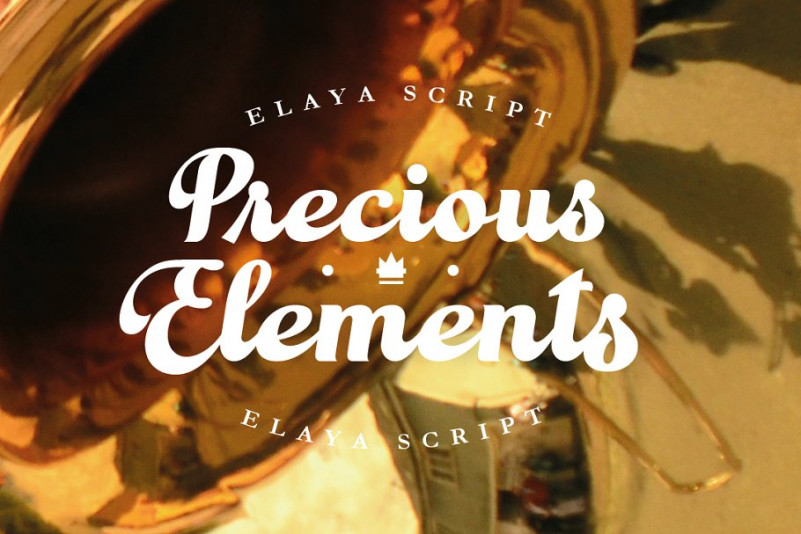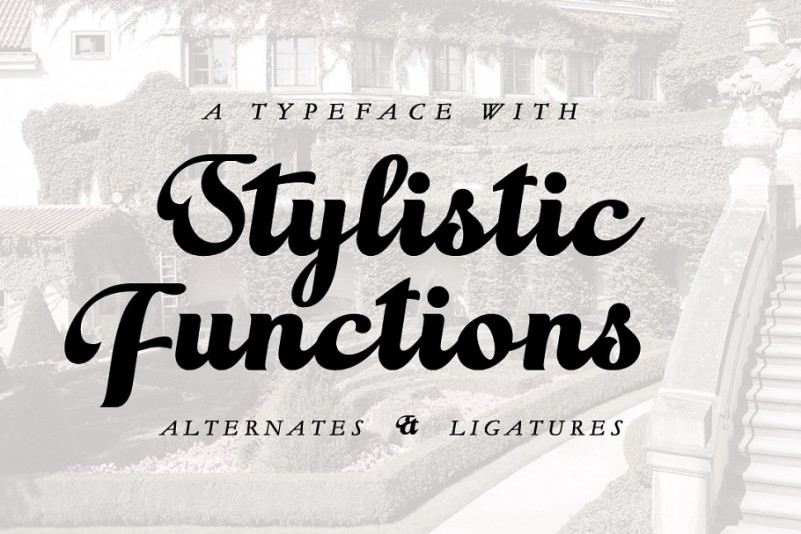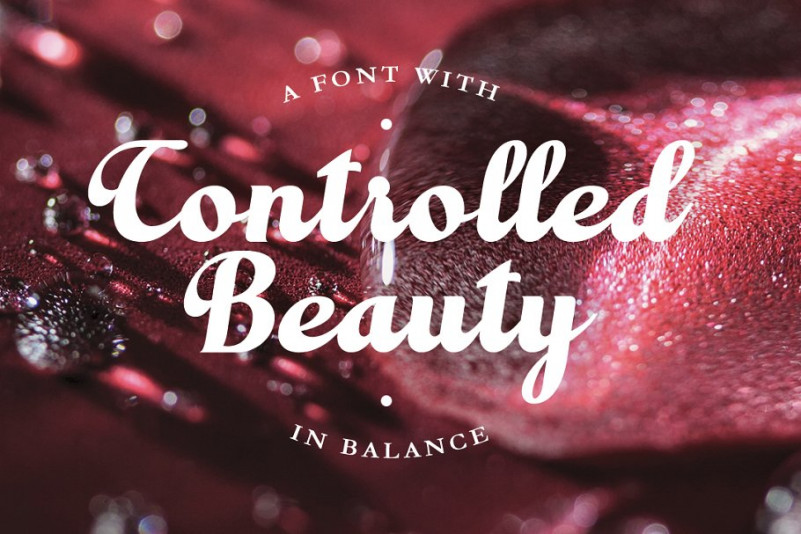
Elaya Script Font
A lovely natural calligraphy font by Mans Greback. It’s a beautiful script font. It has a classy, elegant, and modern! Introducing Elaya Font. It’s a formal and flowing script typeface. Silky and smooth curves, but with a straight and rigid backbone. Perfect for logotypes and titles of a project to emit friendly earnestness.
The font contains OpenType functions such as alternates and ligatures. It supports all European Latin-based languages and has all necessary punctuation and symbols.